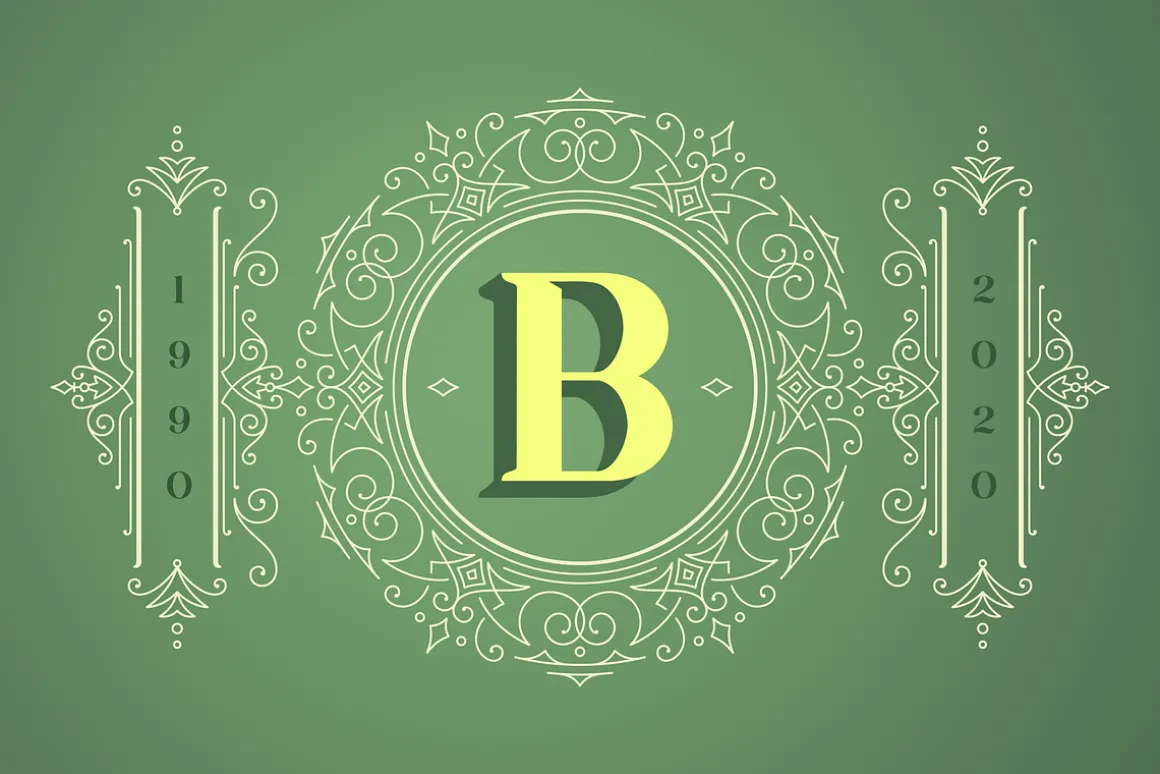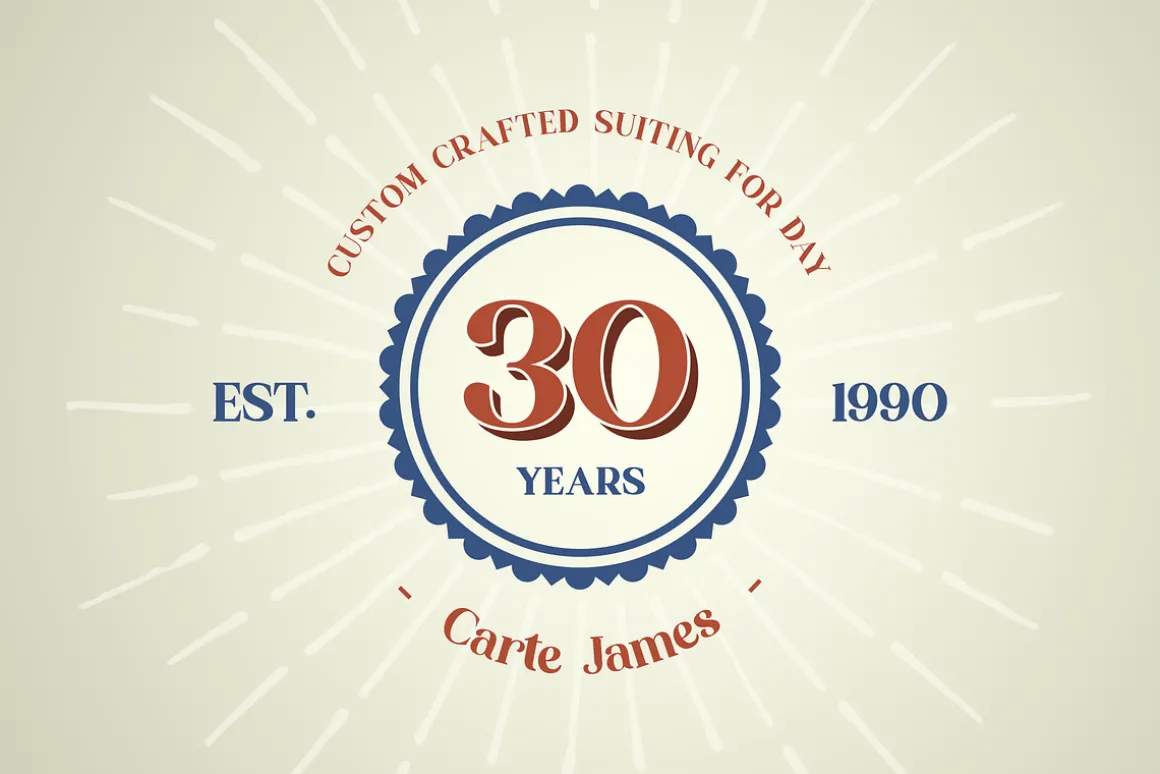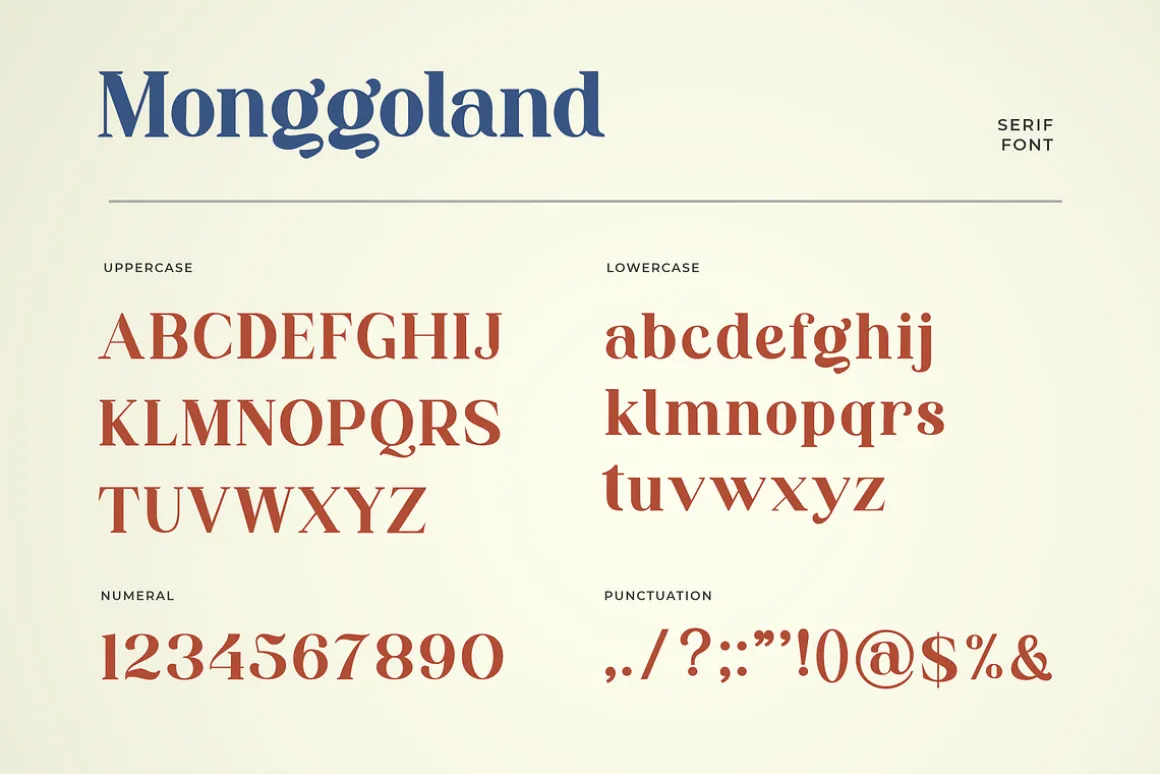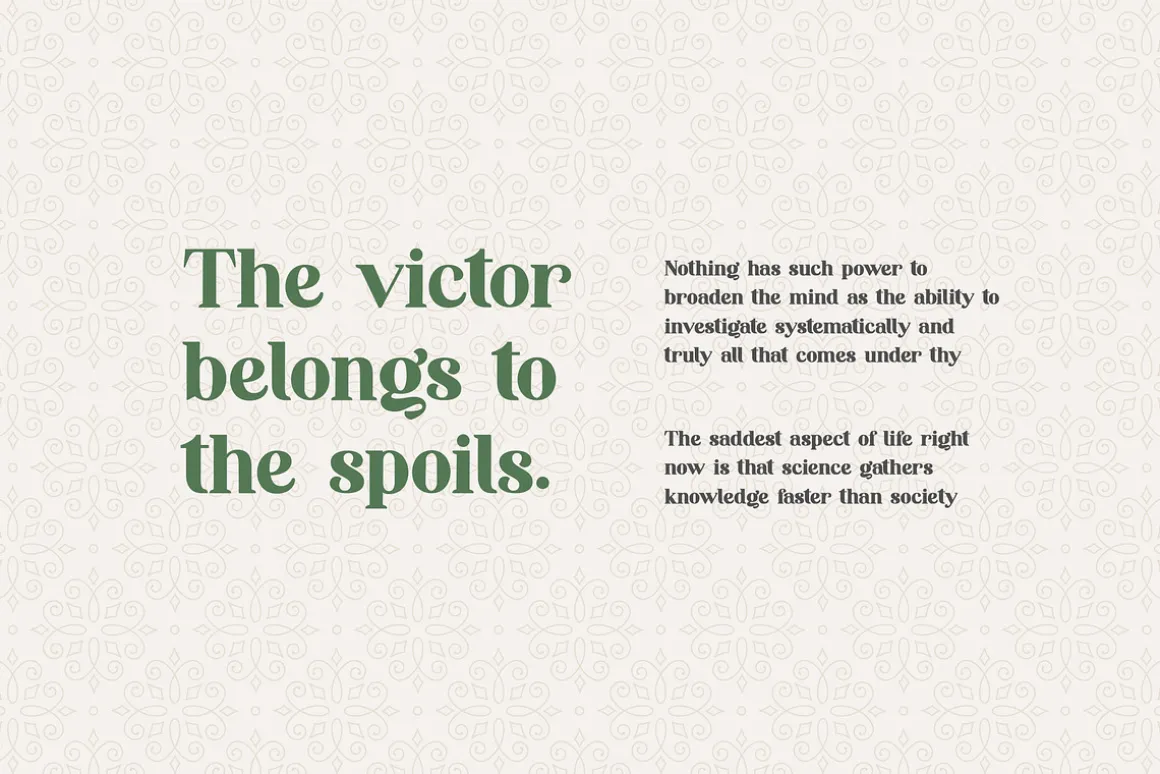
Monggoland is bold and beautiful natural and elegant serif font. Monggoland is perfect for any modern project including branding designs, logos, invitations, wedding decorations, website designs, Instagram, business cards, and more. So what are you waiting for?